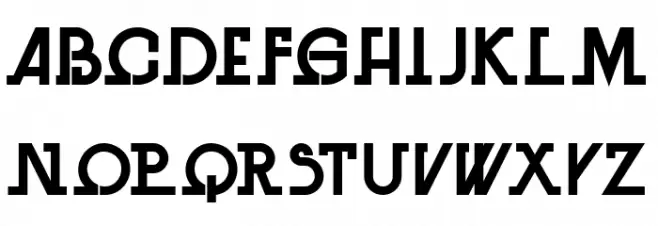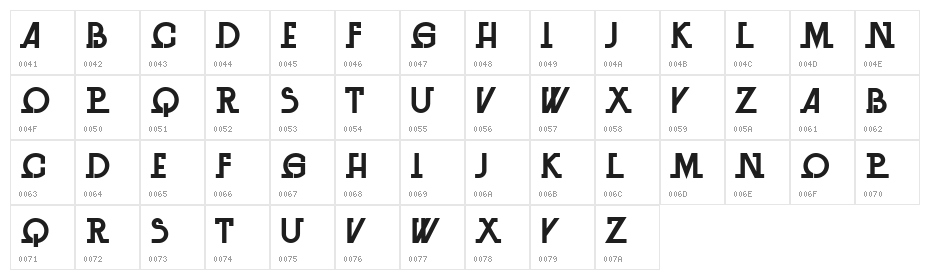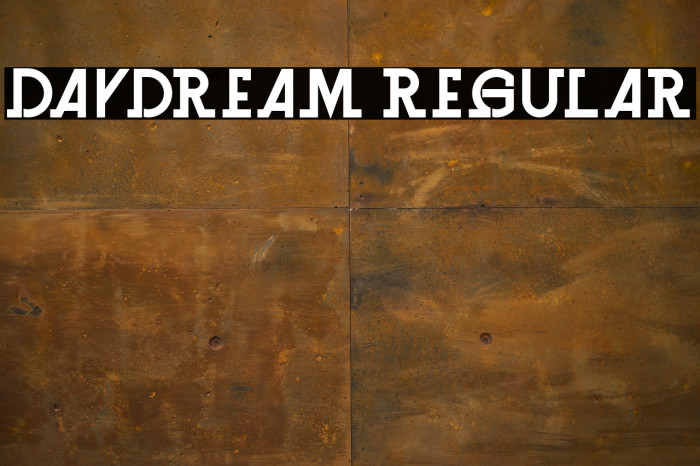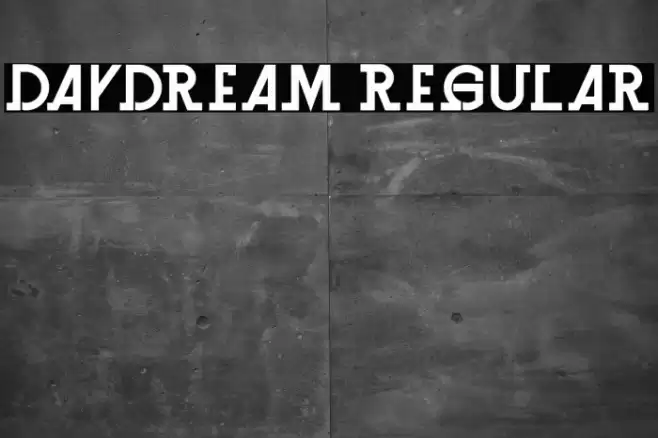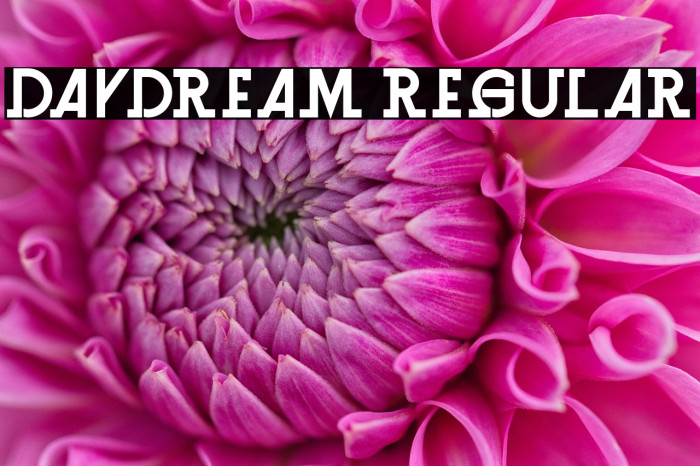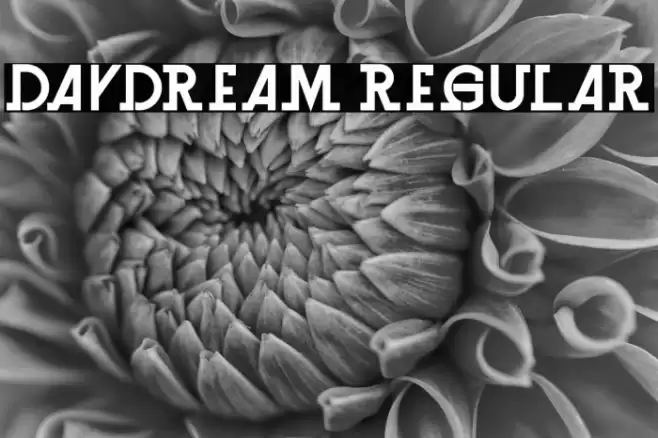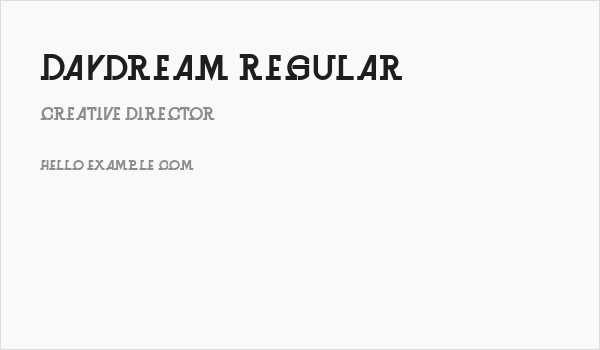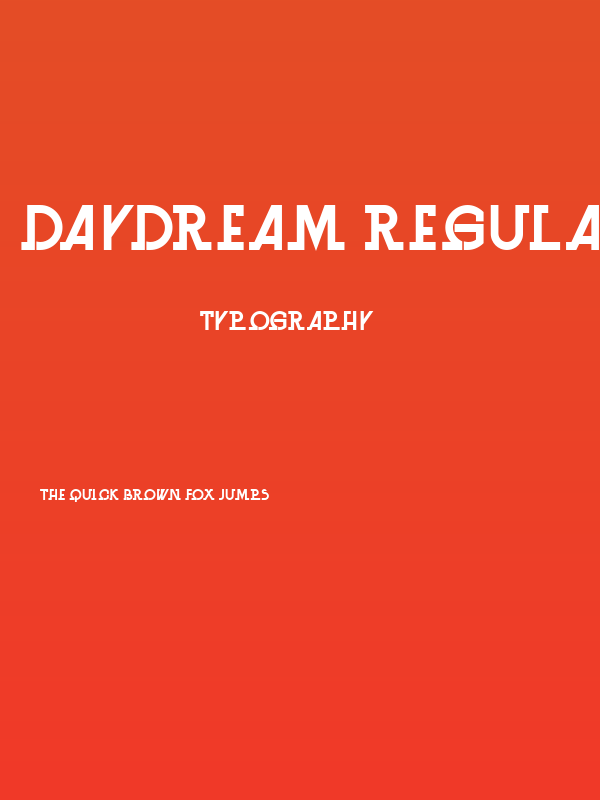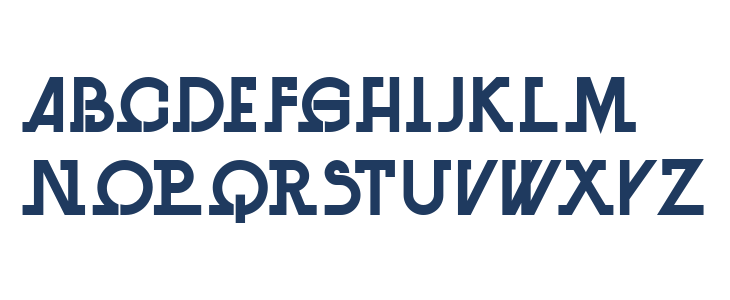
Daydream Regular Font
Daydream Regular Description
This font features a bold, geometric design with a modern flair. Each character is crafted with sharp angles and clean lines, creating a striking visual impact. The uppercase letters are particularly distinctive, with unique cutouts and shapes that add an element of surprise and creativity. The font maintains a consistent weight throughout, ensuring readability while still offering a decorative touch. Its bold presence makes it suitable for attention-grabbing headlines and logos, where a contemporary and artistic style is desired.
| Proposed Projects | Ideal for branding, posters, and modern art projects where a bold statement is needed. |